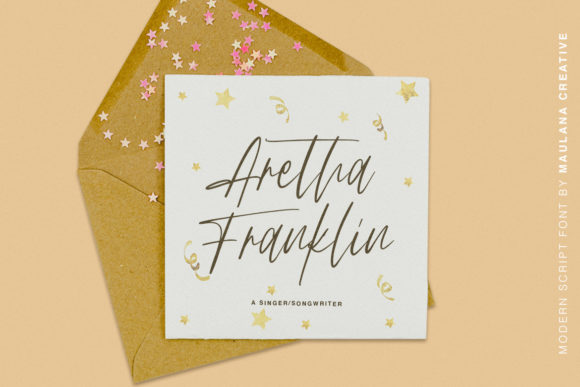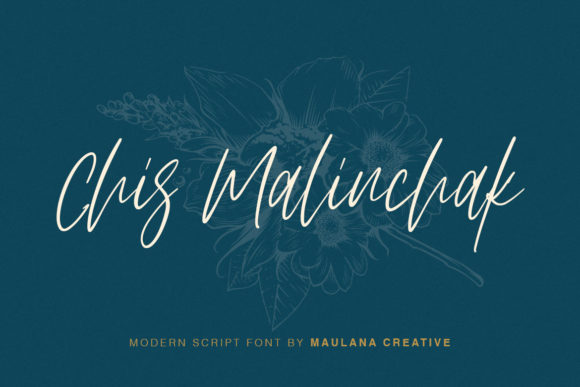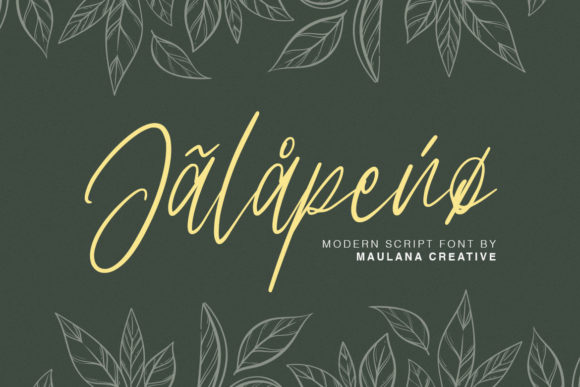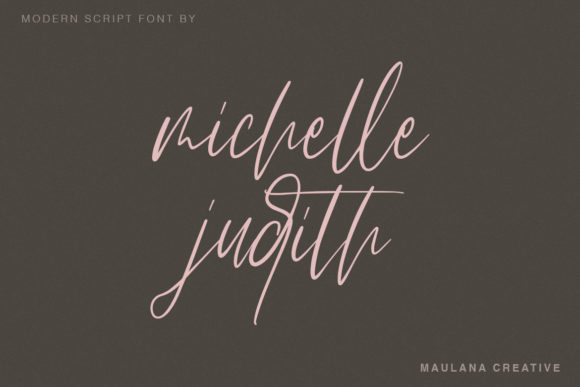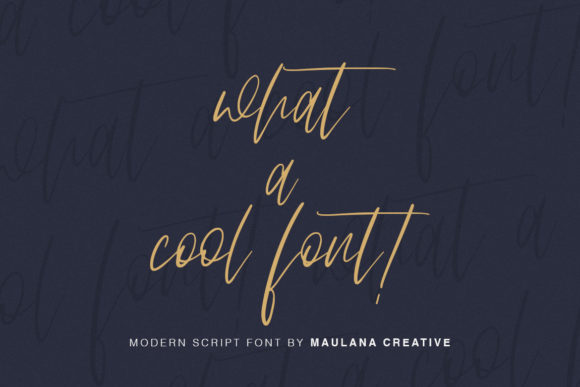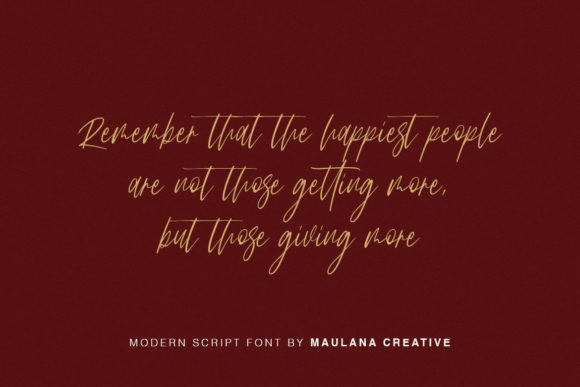
Introducing Arttifac Font: Elevate Your Designs with Authentic Handcrafted Flair
Are you tired of using generic, overused fonts that fail to capture the essence of your design? Look no further than Arttifac Font, the perfect script to infuse your creations with an authentic, handcrafted feel. With its stunning signature style, Arttifac delivers an incredibly bold and charming font experience that will set your designs apart from the rest.
The Perfect Blend of Elegance and Charm
Arttifac Font boasts a unique and captivating aesthetic that seamlessly blends elegance with charm. Its beautifully crafted letters exude a sense of sophistication and refinement, making it an ideal choice for designers and crafters looking to add a touch of luxury to their work. Whether you’re creating wedding invitations, branding materials, or packaging designs, Arttifac Font is sure to impress.
What Makes Arttifac Font Stand Out?
- Authentic Handcrafted Feel: Arttifac Font is designed to mimic the look and feel of handcrafted scripts, giving your designs a unique and personal touch.
- Gorgeous Signature Style: The font’s signature style is both bold and charming, making it perfect for creating eye-catching designs that demand attention.
- Highly Versatile: Arttifac Font can be used for a wide range of design applications, from digital projects to print materials.
- Easily Readable: Despite its bold and ornate appearance, Arttifac Font remains highly readable, even at smaller font sizes.
Why Designers and Crafters Love Arttifac Font
Arttifac Font has quickly become a favorite among designers and crafters due to its versatility, elegance, and charm. Here are just a few reasons why:
- Unique Designs: Arttifac Font allows designers to create unique and eye-catching designs that stand out from the crowd.
- Time-Saving: With Arttifac Font, designers can quickly and easily create professional-looking designs without spending hours crafting custom lettering.
- Consistency: The font’s consistent style and quality ensure that designs look cohesive and polished, even when working on large projects.
Tips for Using Arttifac Font in Your Designs
To get the most out of Arttifac Font, here are a few tips to keep in mind:
- Experiment with Font Sizes: Arttifac Font looks great at a variety of font sizes, so don’t be afraid to experiment to find the perfect fit for your design.
- Pair with Complementary Fonts: Combine Arttifac Font with complementary fonts to create visually interesting and dynamic designs.
- Use for Headlines and Titles: Arttifac Font is perfect for headlines and titles, where its bold and charming style can really shine.
Arttifac Font is a game-changer for designers and crafters looking to add an authentic, handcrafted feel to their designs. With its gorgeous signature style and incredibly bold and charming font experience, it’s the perfect script for creating unique and eye-catching designs. Whether you’re working on a wedding invitation, branding materials, or packaging design, Arttifac Font is sure to elevate your work to the next level.